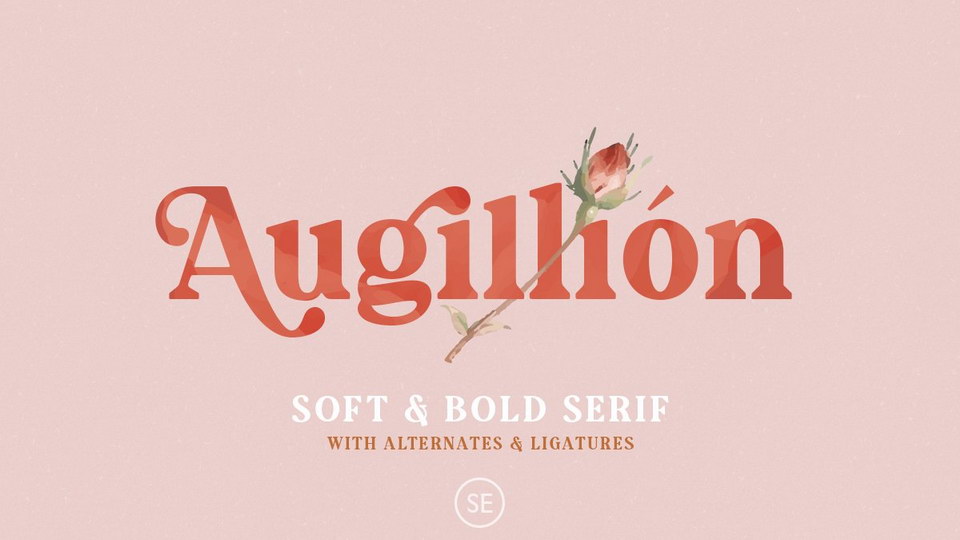
Feb 8, 2025SerifAugillion Font Augillion is a modern and bold serif typeface with a bunch of ligatures and alternates that will make your presentation or logo even more stunning and stand out. Font DetailsDesigned by: Sarid EzraWebsiteLicense: Free for personal use Download Augillion FontFile size: 16.23 KBCreated: February 16, 2025Updated: February 16, 2025 Download Explore similar fonts Connect Markets Font Retro Dingo Font Brindley Houston Font Evermont Font Sharp History Font Flowserif Font # Antiqua# Decorative# Elegant# Fancy# Vintage# Wedding More fonts by Sarid EzraDuarose FontCarentro FontMandalika FontPsyche Lover FontChequers FontCherions FontPersona FontRetrips Font